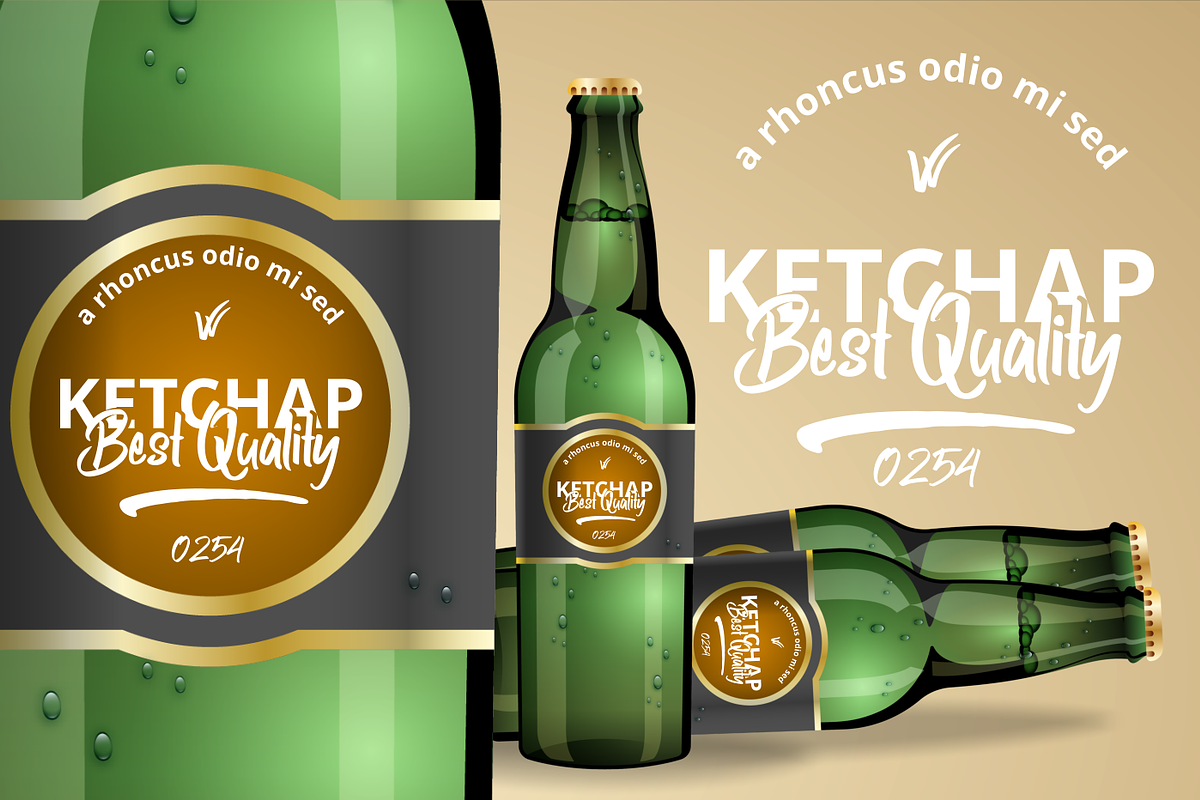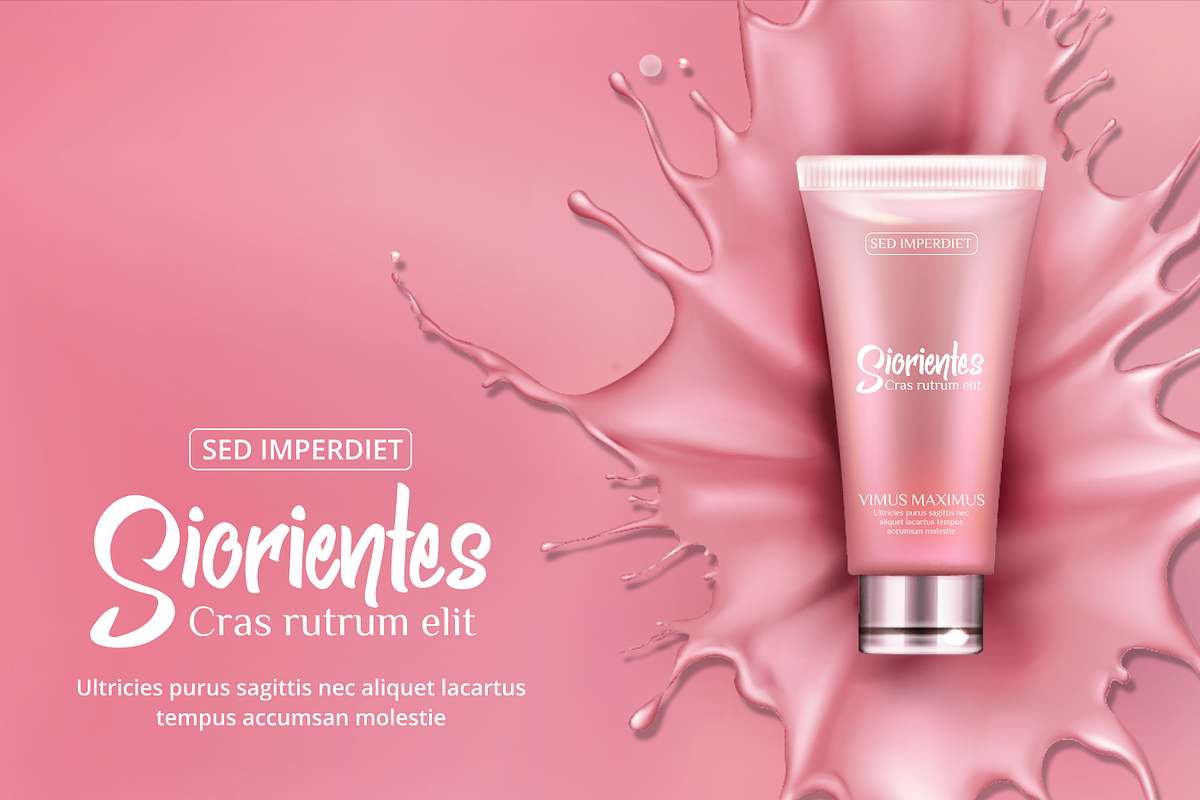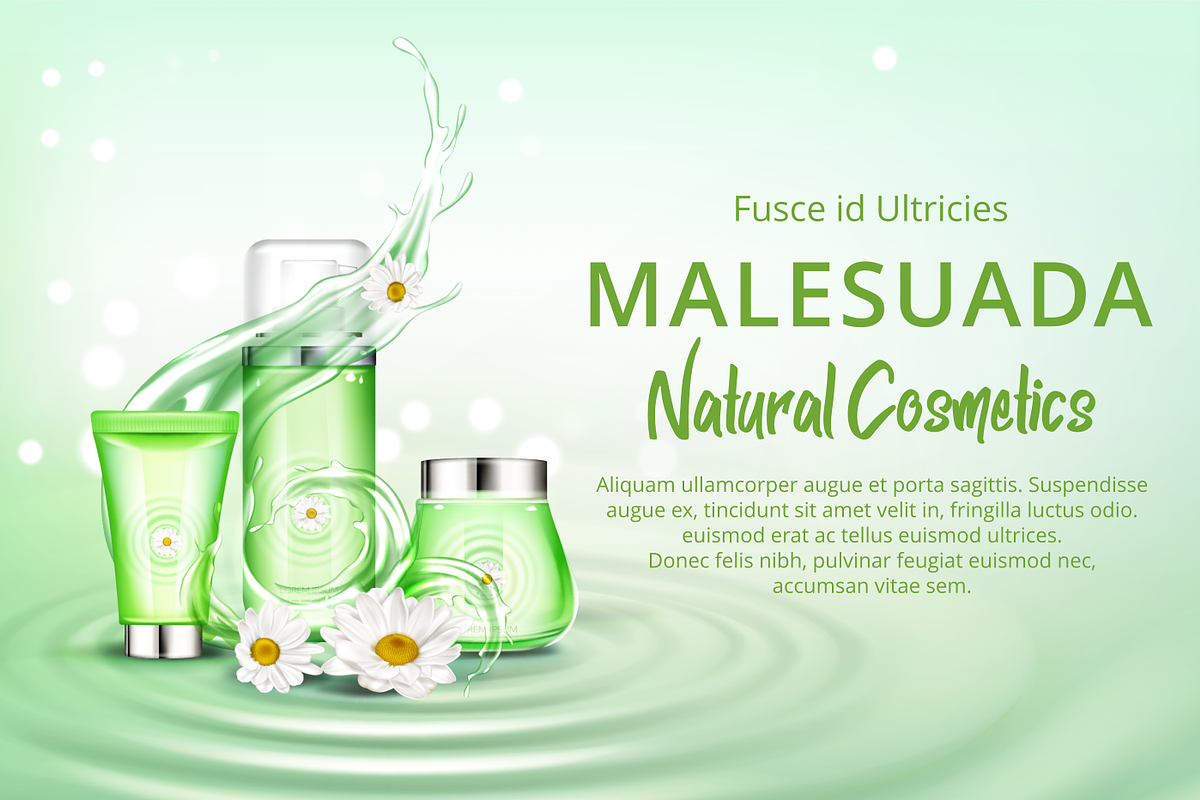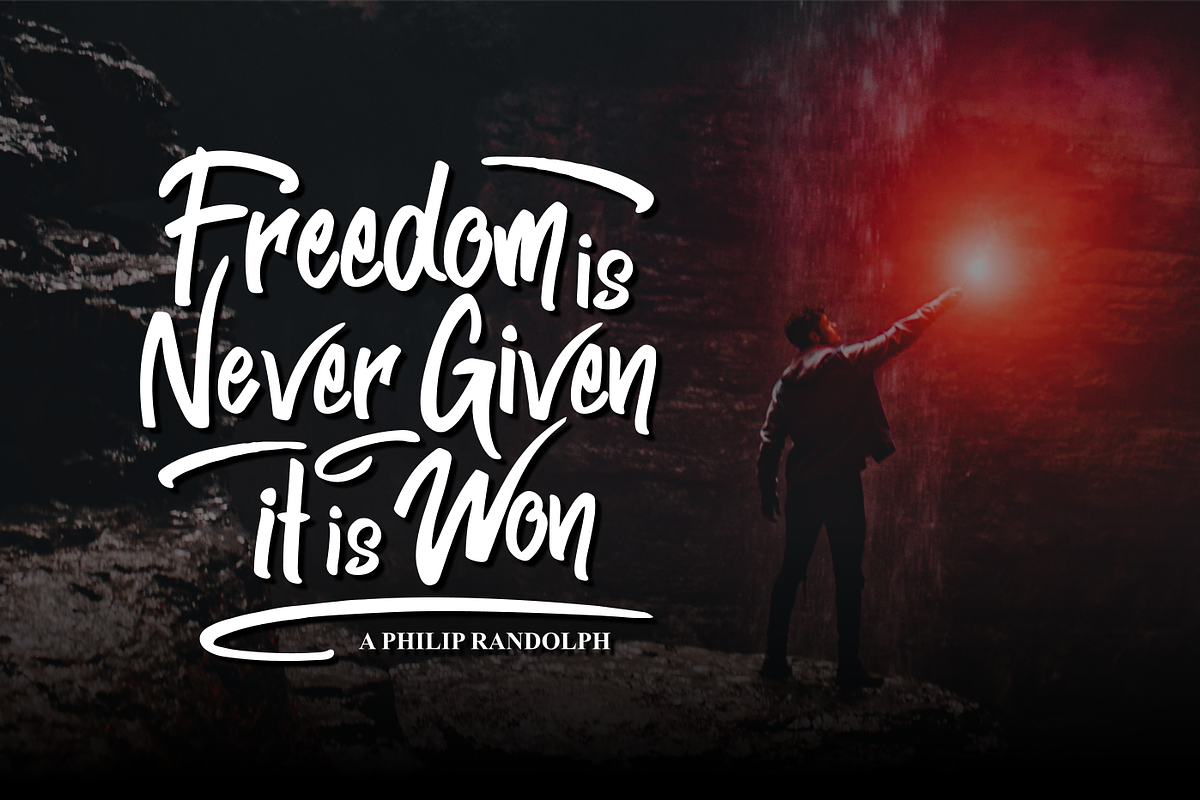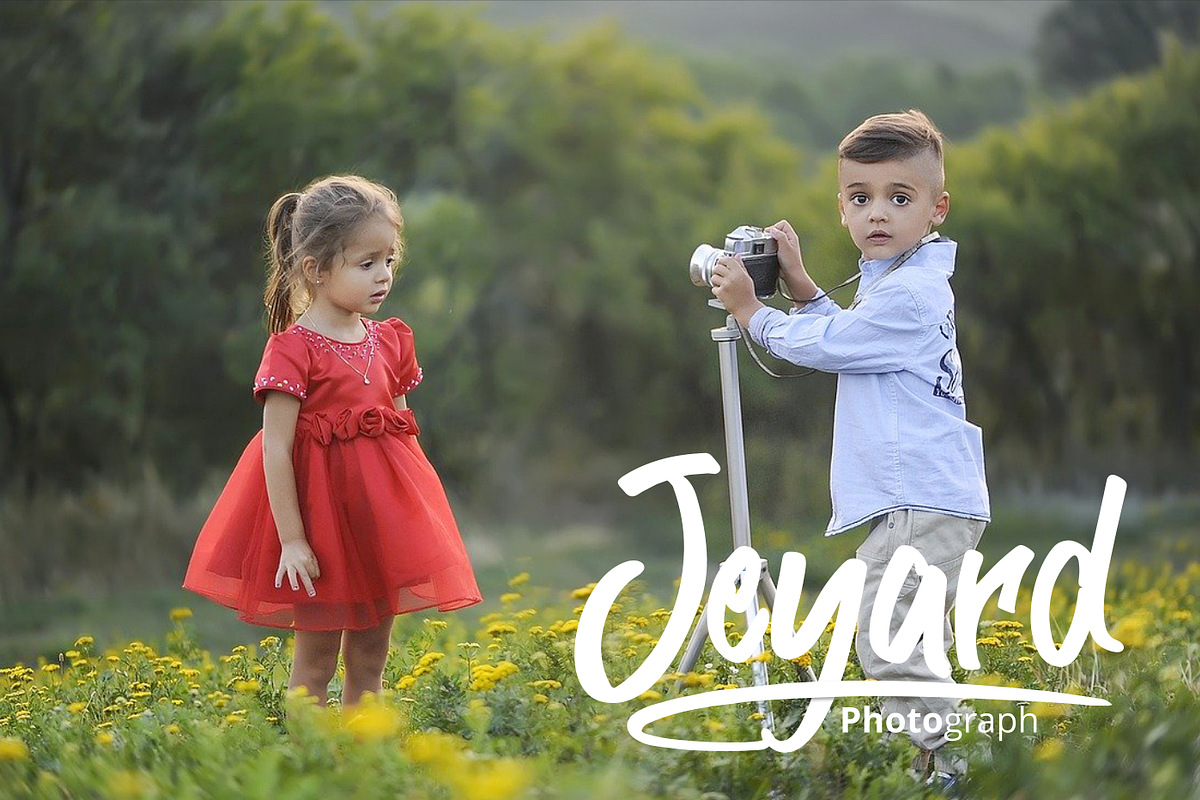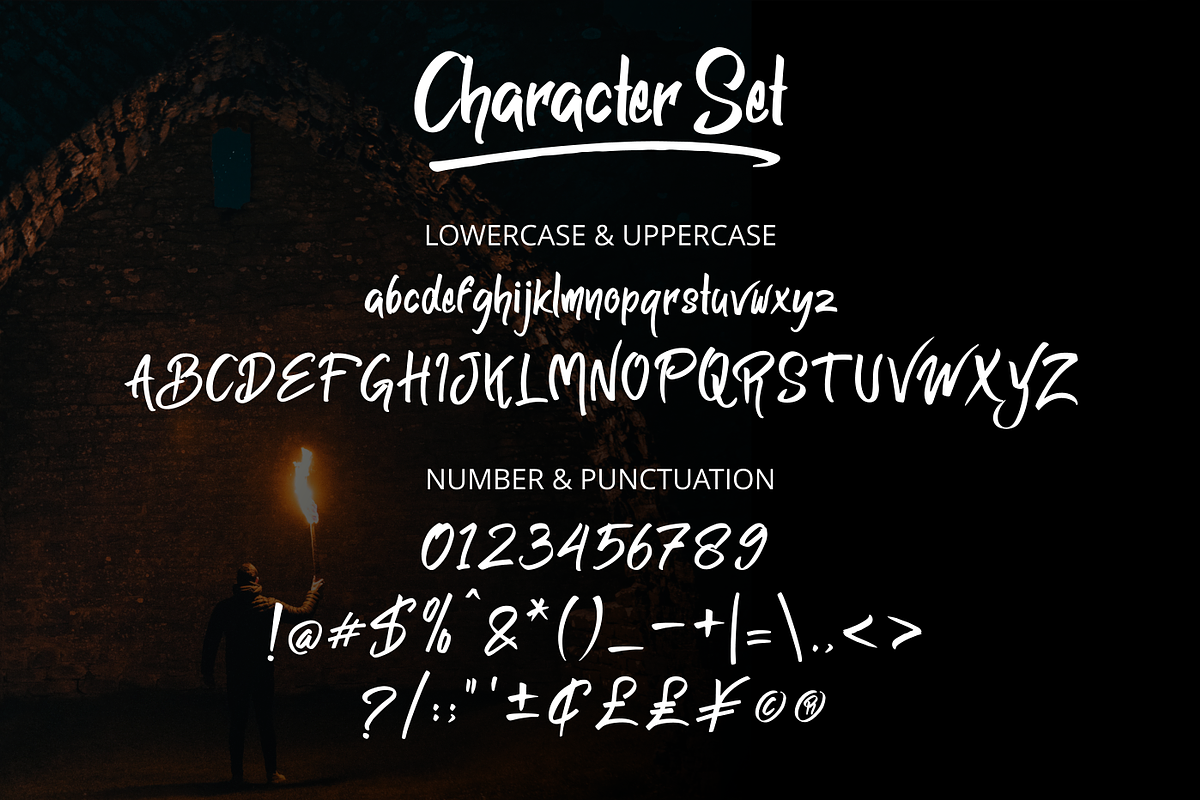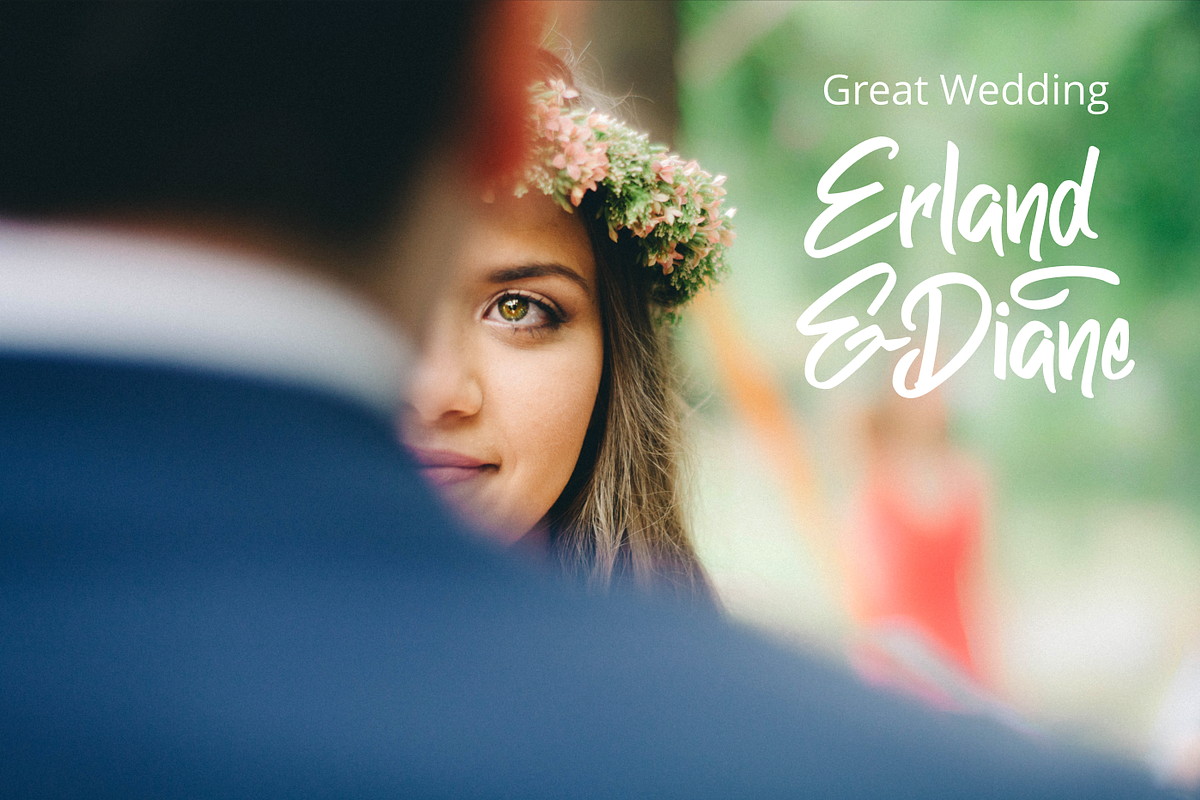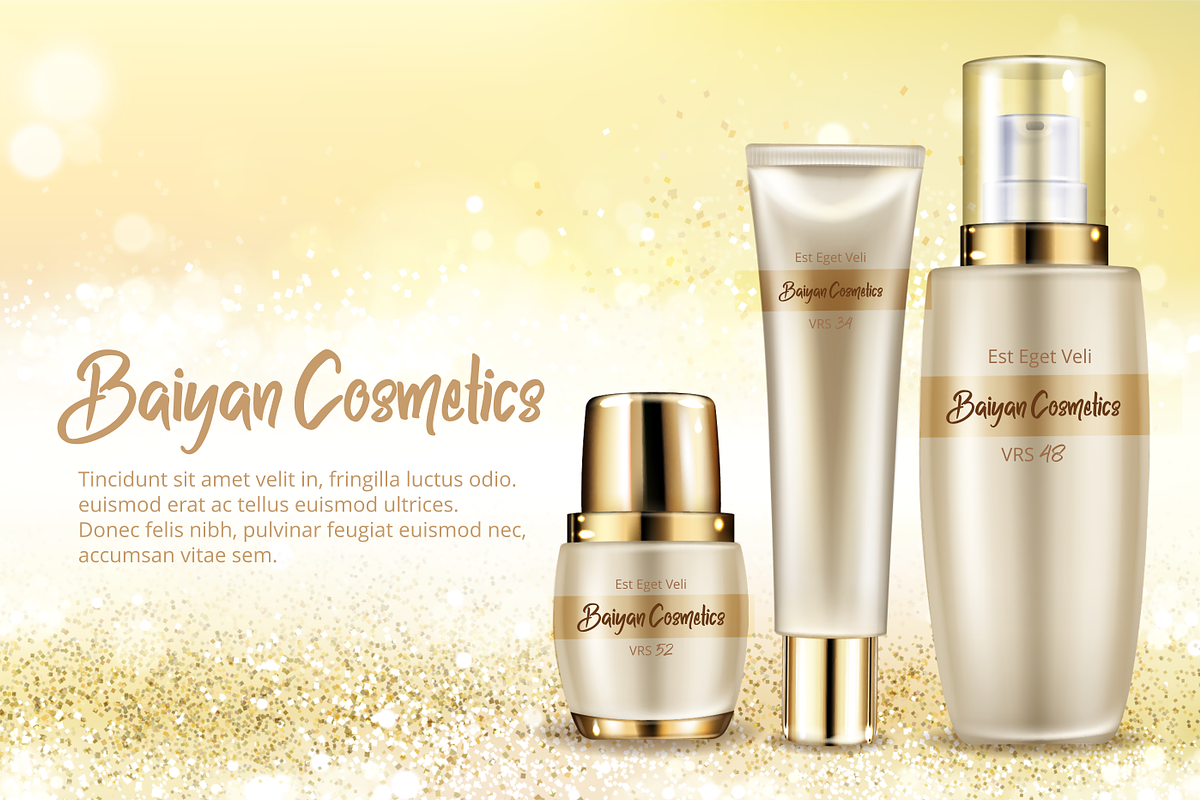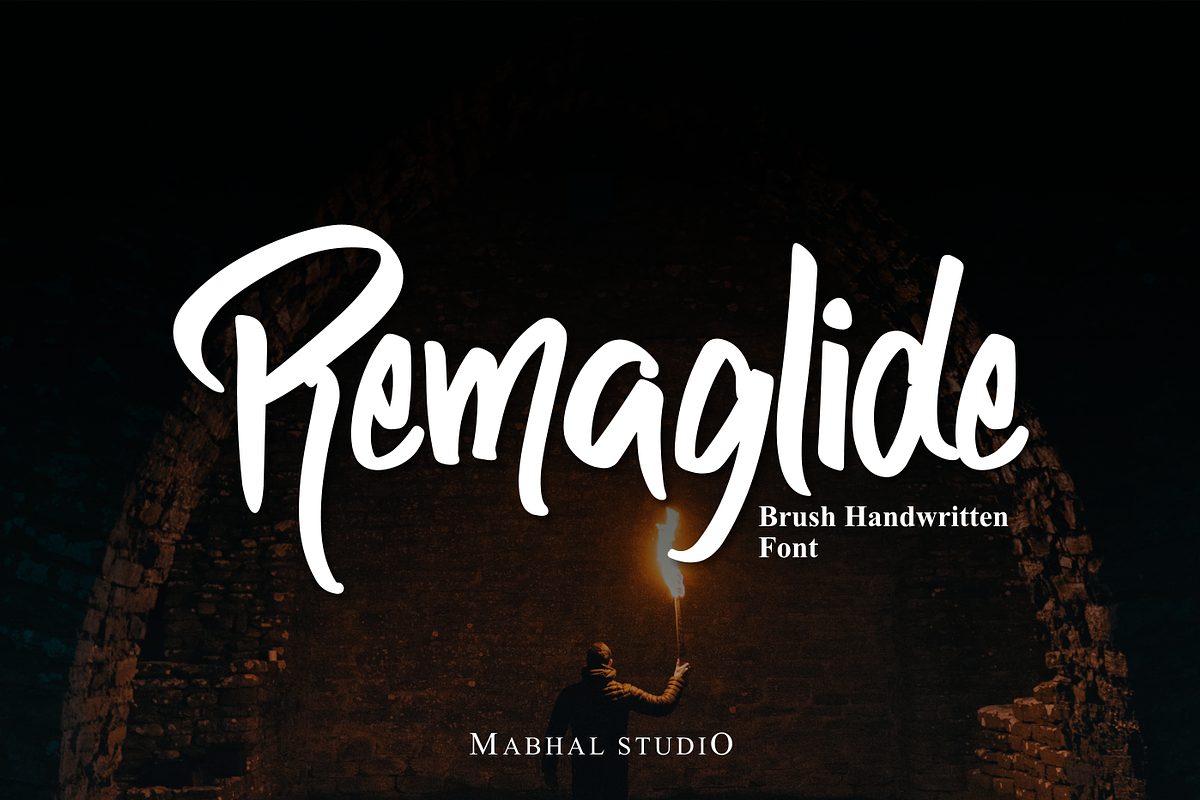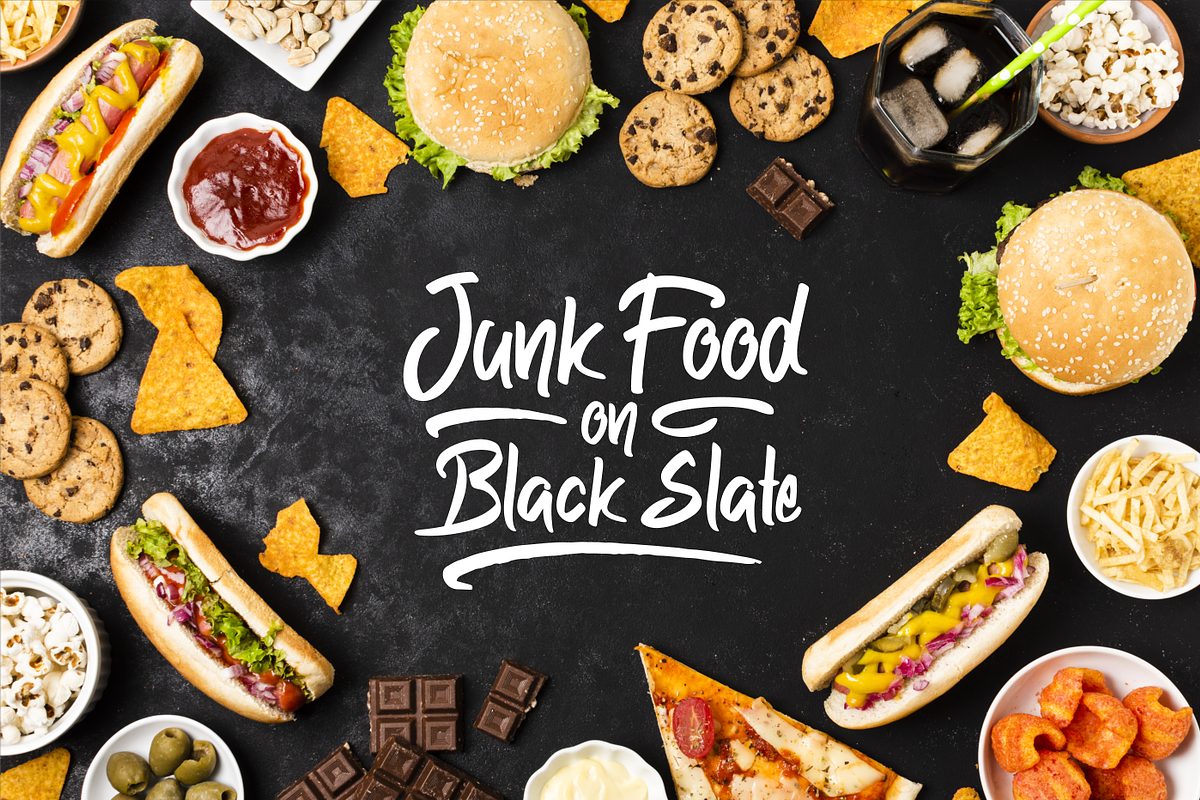
Remaglide
Remaglide is a casual, fun handwritten font, created by using a brush pen. Remaglide is the perfect font for making original and outstanding designs.